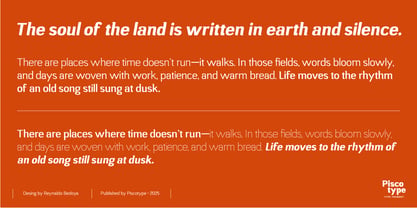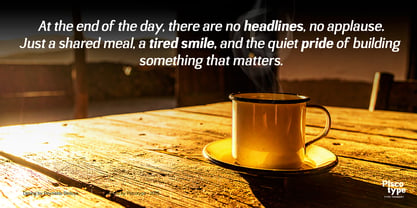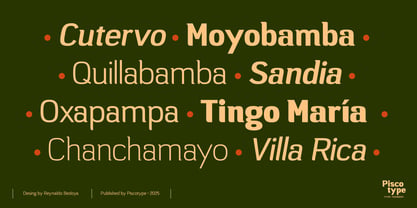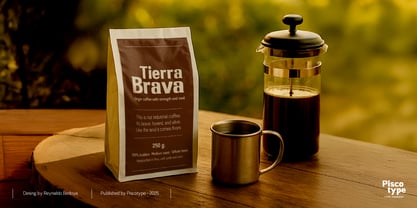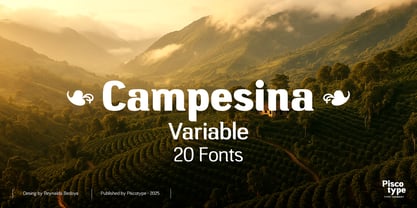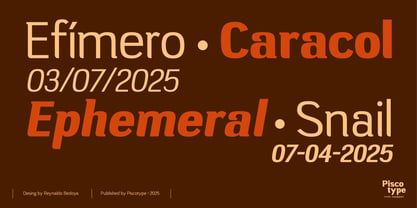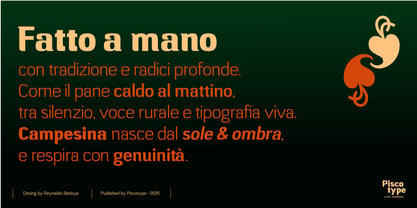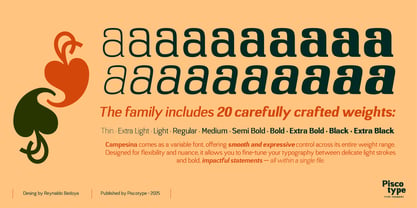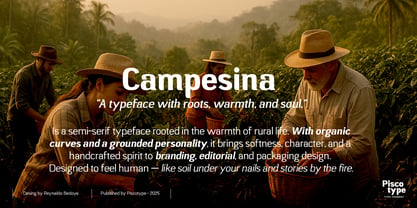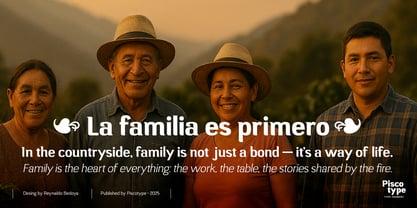
Campesina
by Piscotype
The Campesina Font Family was designed by Reynaldo Bedoya and published by Piscotype. Campesina contains 21 styles and family package options. More about this family
Campesina is a warm, semi-serif typeface inspired by the strength and soul of rural life. With bold curves and rustic charm, it brings a handcrafted feel to headlines, packaging, and editorial design. Designed to stand out while staying grounded, Campesina is perfect for brands that want to speak with authenticity and character.